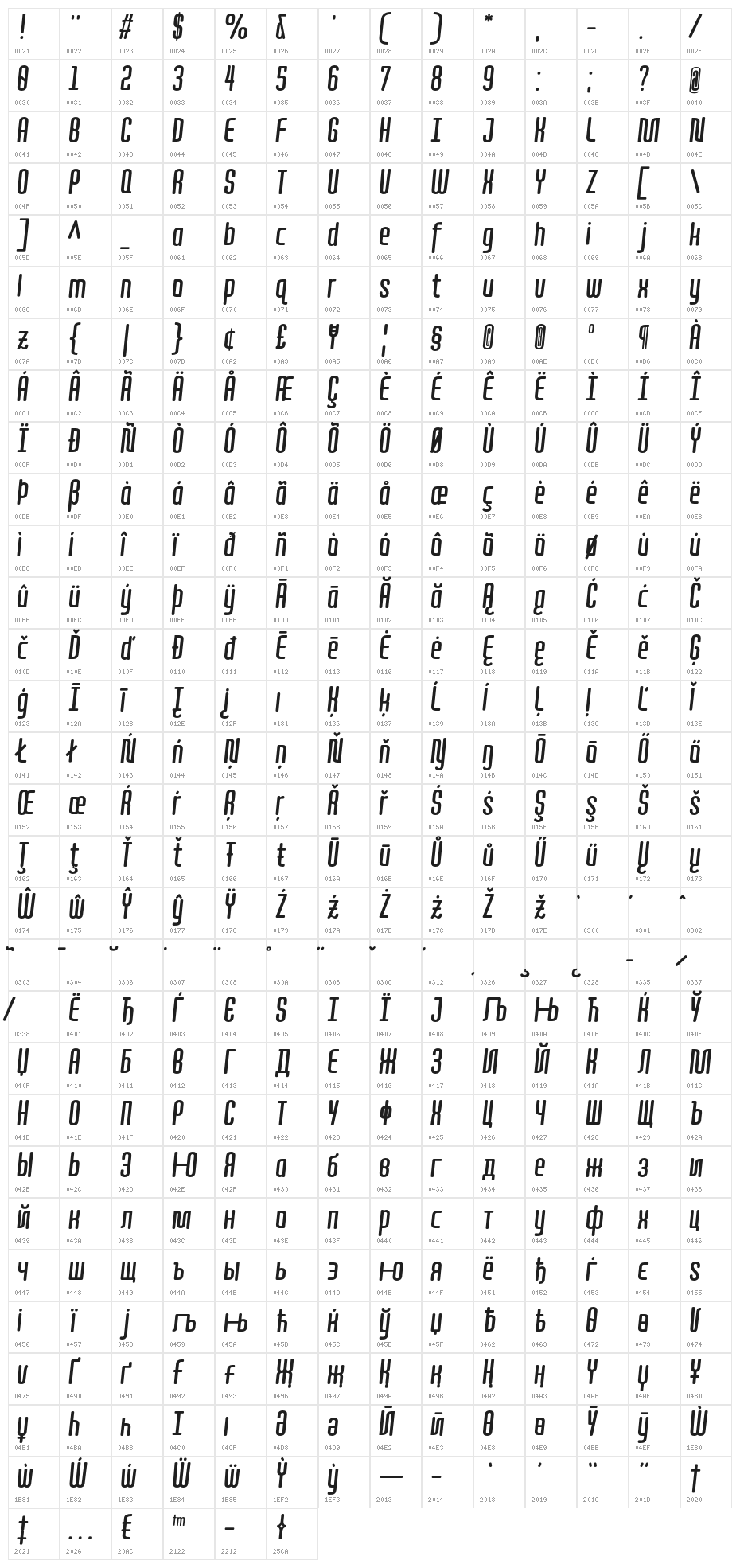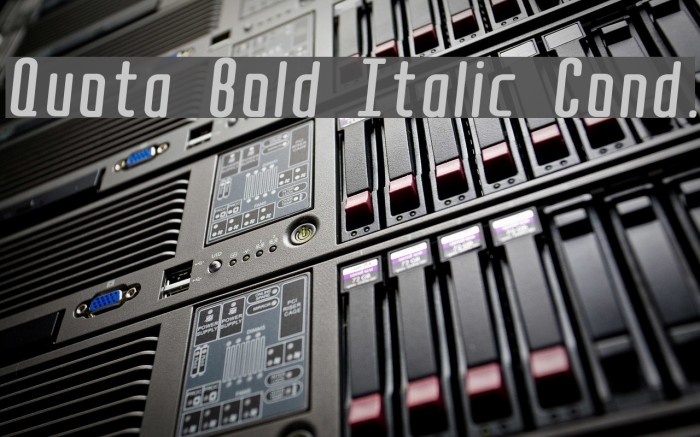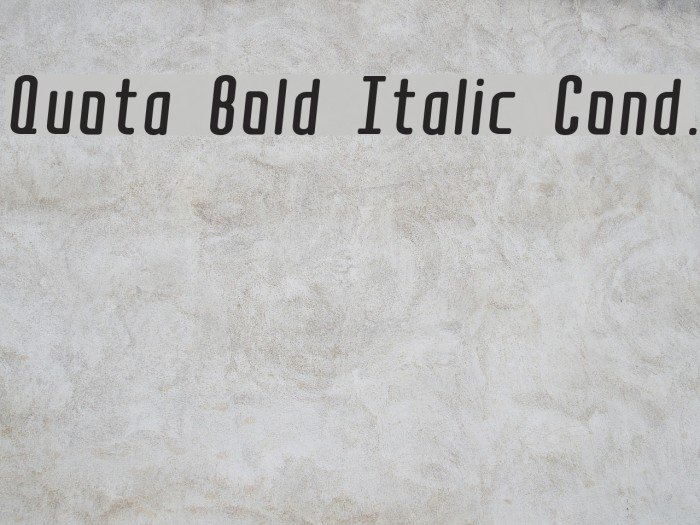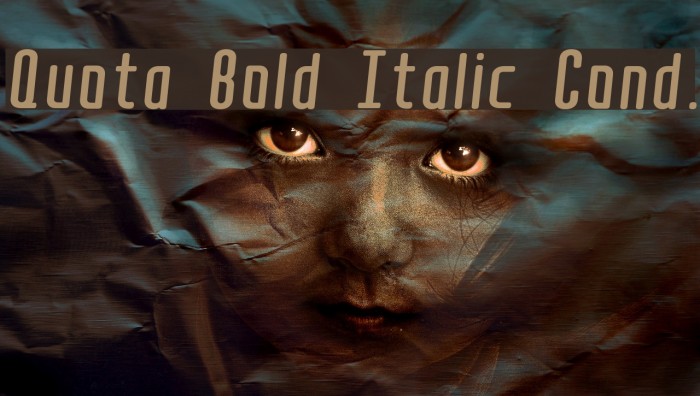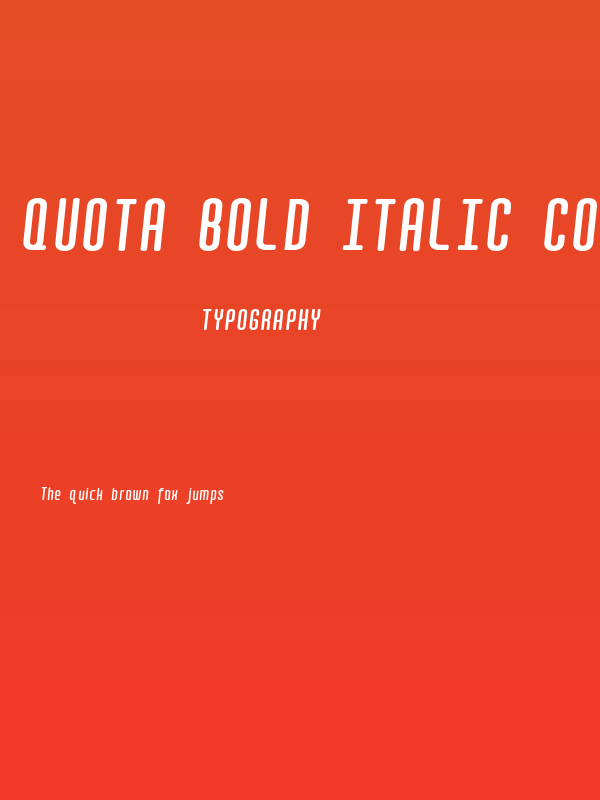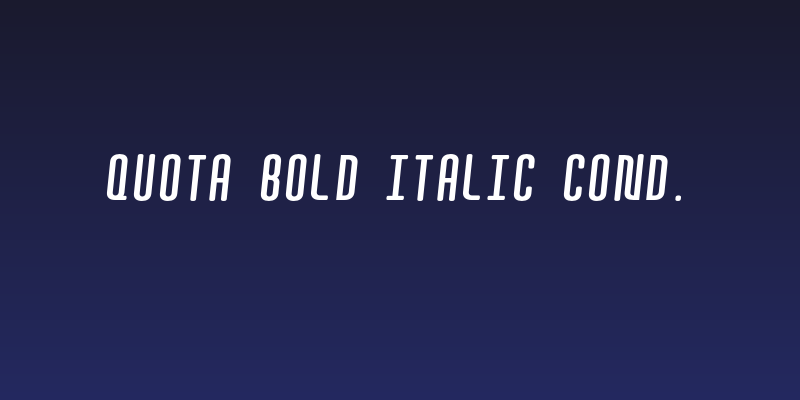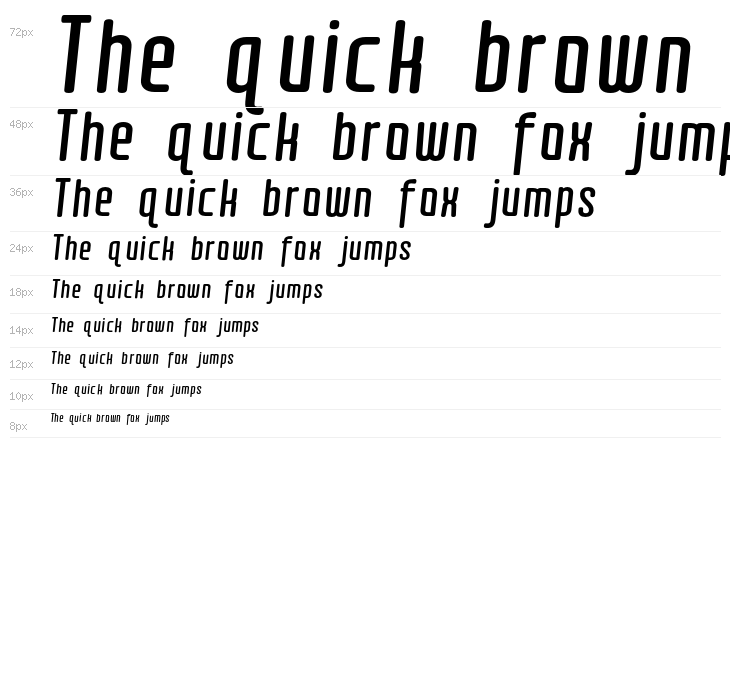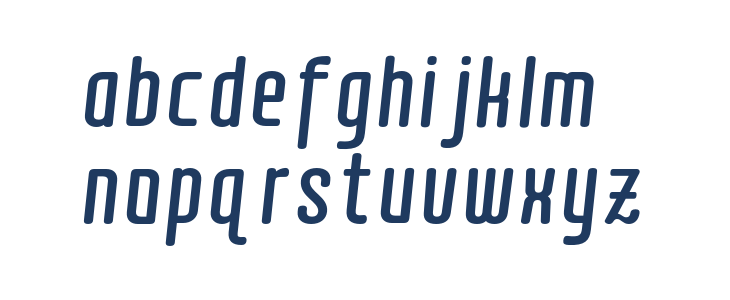
Quota Bold Italic Cond. Font
Quota Bold Italic Cond. Description
This font features a bold and italicized style with a condensed width, giving it a modern and sleek appearance. The characters are elongated with rounded edges, providing a smooth and continuous flow. The uppercase and lowercase letters maintain a consistent height, enhancing readability while adding a touch of elegance. Numbers and special characters are designed with the same boldness and curvature, ensuring uniformity across all elements. The overall design is both functional and aesthetically pleasing, making it suitable for various creative applications.
| Proposed Projects | Ideal for branding, advertising, and editorial design projects where a modern and bold statement is needed. |